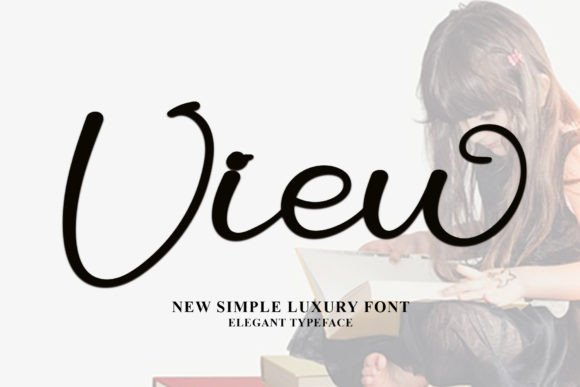
Step into a world of elegance and sophistication with View, the script font that elevates your designs to new heights. Inspired by the timeless art of calligraphy, View blends contemporary flair with classic charm, resulting in a font that exudes both style and substance.
Immerse yourself in the beauty of View's meticulously crafted characters, each stroke a testament to the artistry and attention to detail that went into its creation. The balanced and varied nature of this font ensures it complements a wide range of design projects, adding a touch of sophistication and refinement to any layout.
Unleash your creativity and watch as View transforms your words into works of art. Its flowing lines and graceful curves lend an air of elegance to invitations, branding, logos, and social media posts. Let View elevate your designs and capture the attention of your audience.
With View, you're not just downloading a font; you're inviting a touch of luxury into your design projects. Its versatility extends far beyond the digital realm, making it a perfect choice for interior design projects as well. Imagine the impact of View's elegant script adorning the walls of a living room, adding a touch of personalized charm to the space.
Picture the awe-inspiring beauty of View gracing the pages of a wedding invitation, setting the tone for a day filled with love and elegance. Let View be the voice that conveys your heartfelt messages, leaving a lasting impression on your loved ones.
Explore the endless possibilities of View and discover a font that not only enhances your designs but also reflects your impeccable taste and discerning eye for aesthetics. Embrace the beauty of View and embark on a creative journey that will leave your audience spellbound.